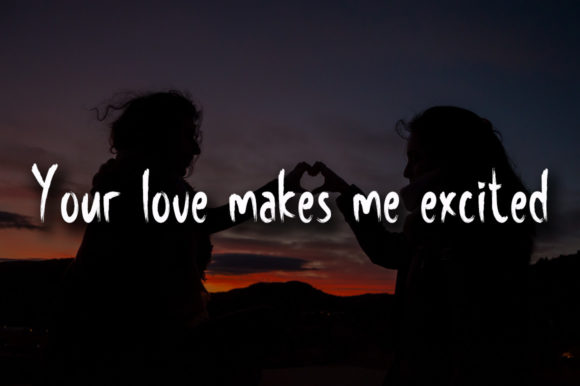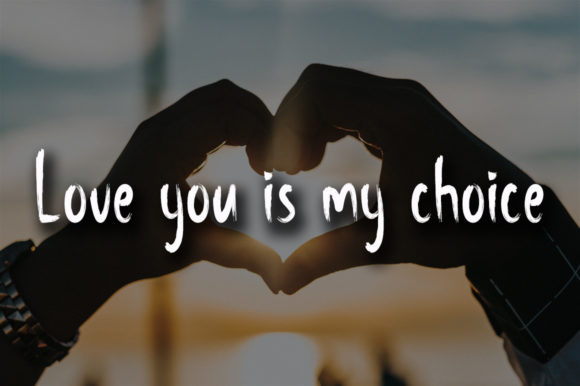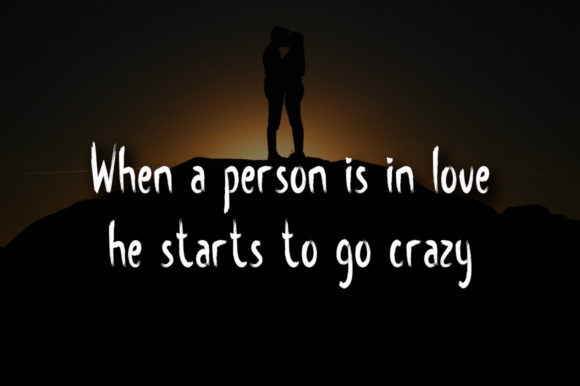
Introduction to Lovesick Girl Font
Have you ever been working on a creative project, pouring your heart and soul into it, only to feel like something’s missing? That’s where the perfect font comes in – a game-changer that can elevate your design and make it truly unforgettable. For designers looking to add a touch of personality to their work, the Lovesick Girl Font is an excellent choice.
This casual, brushed handwritten font is a versatile design resource that can be seamlessly integrated into a wide range of creative projects, from social media graphics to wedding invitations. With its high-quality, transparent background, it’s easy to see why the Lovesick Girl Font has become a go-to choice for designers seeking a unique and eye-catching aesthetic.
Key Features of Lovesick Girl Font
- Unique, hand-drawn design perfect for creative projects, including illustrations, graphics, and typography.
- High-quality, scalable font with transparent background, ideal for use on various backgrounds and designs.
- Includes a range of characters, including uppercase and lowercase letters, numbers, and special symbols.
- Designed to be used at a large size, with a recommended resolution of 300 DPI for high-quality prints and digital displays.
- Perfect for adding a touch of whimsy and personality to your designs, from logos and branding to posters and social media graphics.
Honest Review: Lovesick Girl Font
I recently came across the Lovesick Girl Font, and I must say it’s a great addition to any designer’s toolkit. With its free download and transparent background, it’s a perfect design resource for any creative project.
What works well is the font’s high-quality design, making it perfect for digital and print projects. The unique style and playful feel of the font make it an excellent choice for projects that require a touch of whimsy.
- Transparent background, allowing for easy customization
- High-quality design, suitable for both digital and print projects
- Unique style, perfect for adding a touch of personality to any project
One limitation of the Lovesick Girl Font is that it may not be suitable for formal or professional projects, as its playful style may not be taken seriously in those contexts.
Overall, I’m impressed with the Lovesick Girl Font. It’s a great resource for designers who want to add a touch of creativity to their projects without breaking the bank.
How to Use Lovesick Girl Font
For optimal results, use the Lovesick Girl Font in conjunction with other design elements to create a cohesive look. Common use cases include:
- Typography-based graphics